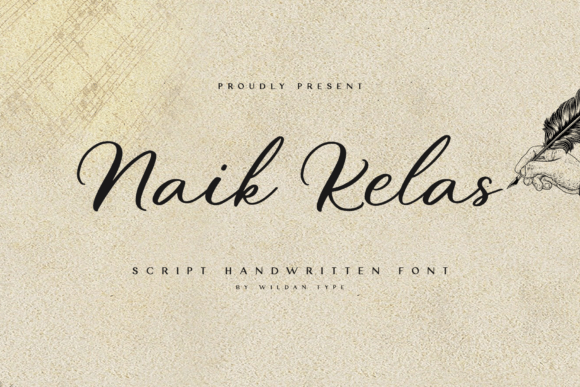
Feast your eyes upon the Naik Kelas Font, a script font that personifies elegance and classicism, embodying a retro yet refreshing aesthetic. Designed meticulously by Wildan Type, this font is your gateway to a world of luxury and sophistication, beckoning you to infuse your designs with a timeless charm.
Immerse yourself in the world of fashion and couture, where Naik Kelas Font dances gracefully upon your creations. Envision the allure of your designs, imbued with an air of exclusivity and refinement. Let the delicate curves and sweeping strokes of Naik Kelas Font elevate your branding, logos, invitations, and social media posts, propelling them to the forefront of elegance.
Step into the realm of stationery and wedding invitations, where Naik Kelas Font transforms the ordinary into the extraordinary. Picture your wedding invitations adorned with the enchanting strokes of Naik Kelas Font, conveying the depth of your love in a timeless and unforgettable manner. Create stationery that reflects your unique style, whether it be classic, vintage, or modern, and watch as Naik Kelas Font weaves its magic, captivating the hearts of all who behold it.
Unleash your creativity in the world of branding and logo design, where Naik Kelas Font stands as a beacon of sophistication. Imagine your brand logo, etched with the refined lines of Naik Kelas Font, exuding an aura of professionalism and luxury. Allow Naik Kelas Font to elevate your brand identity, setting it apart from the mundane and propelling it to new heights of recognition and success.